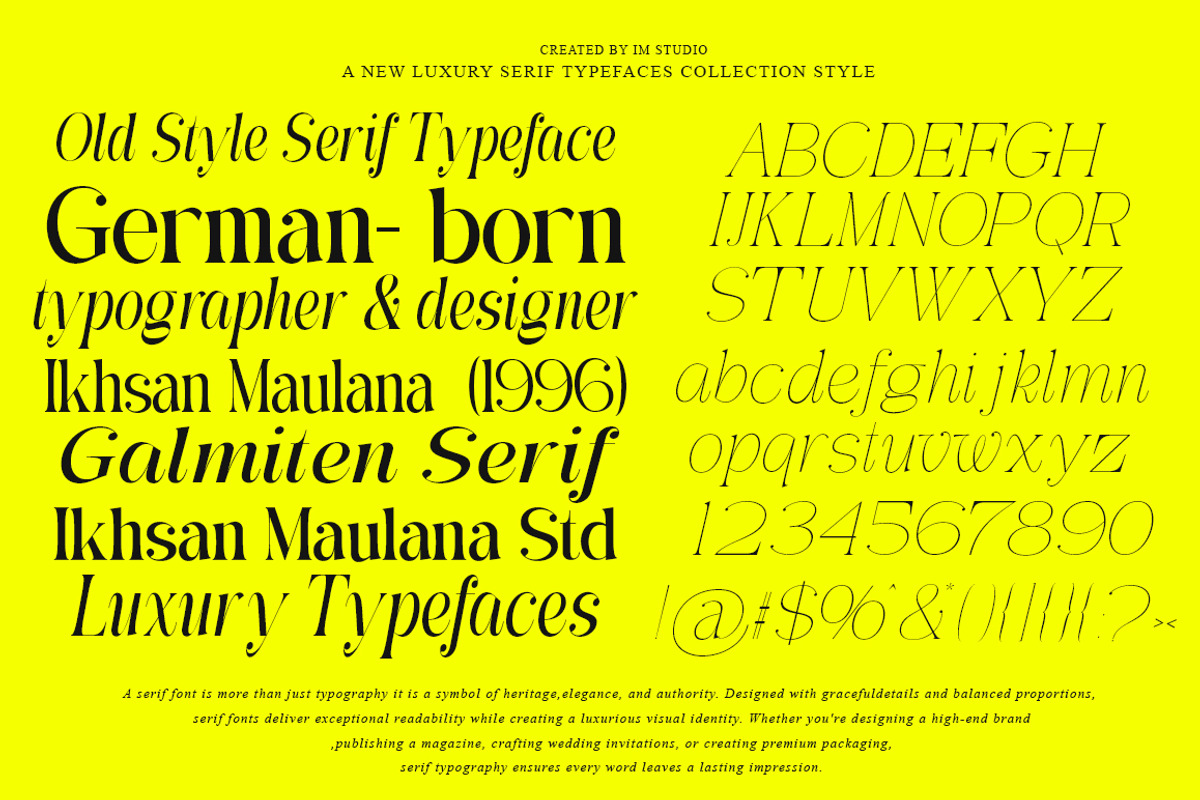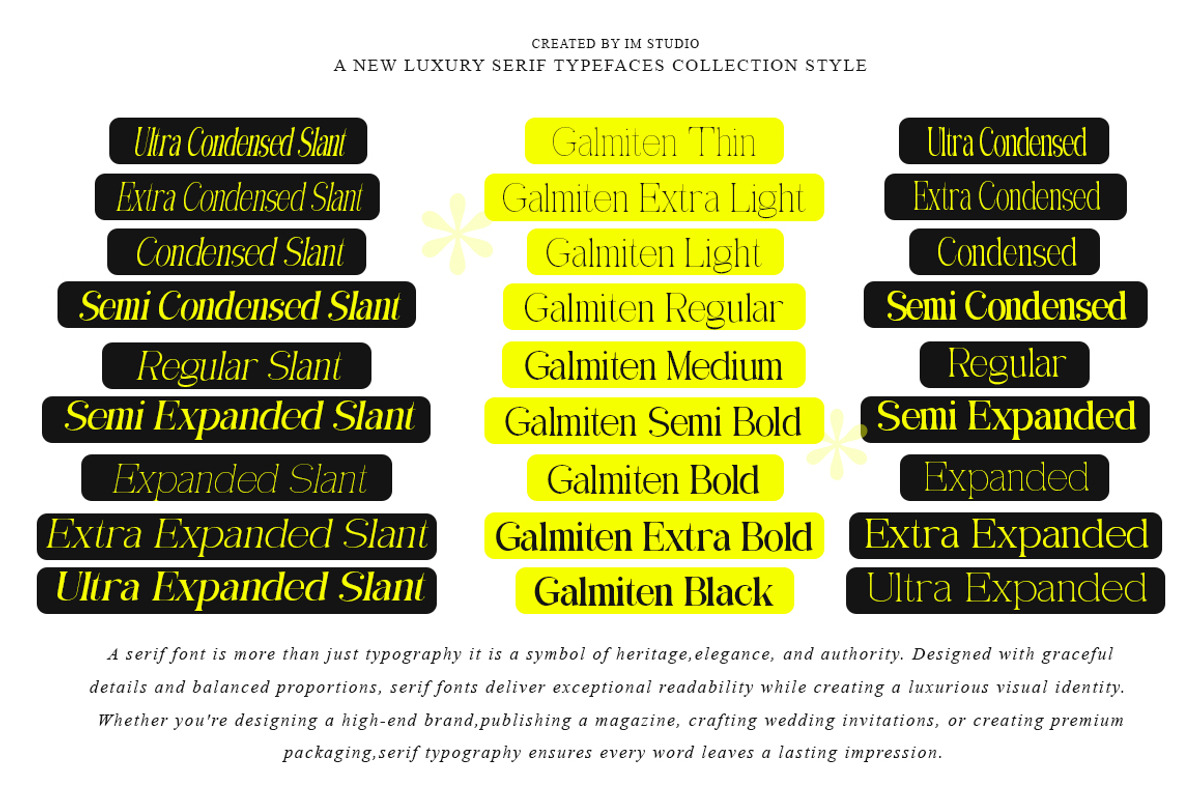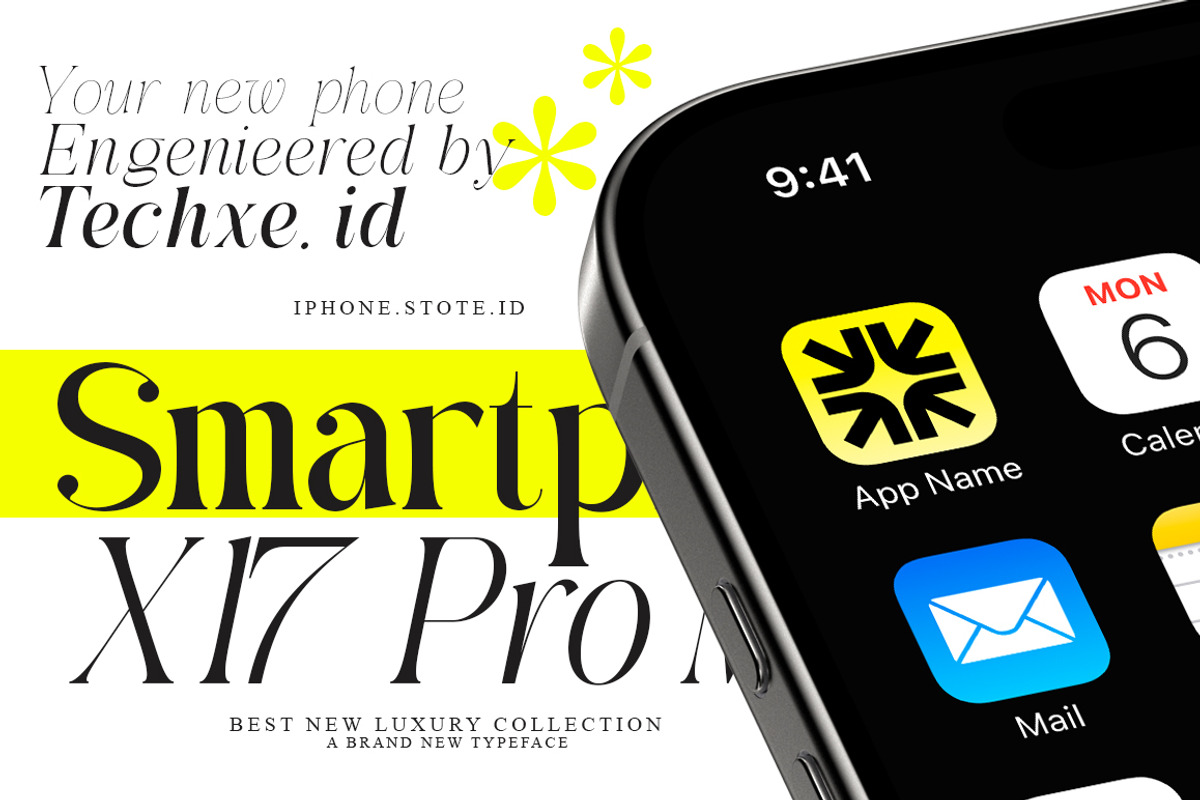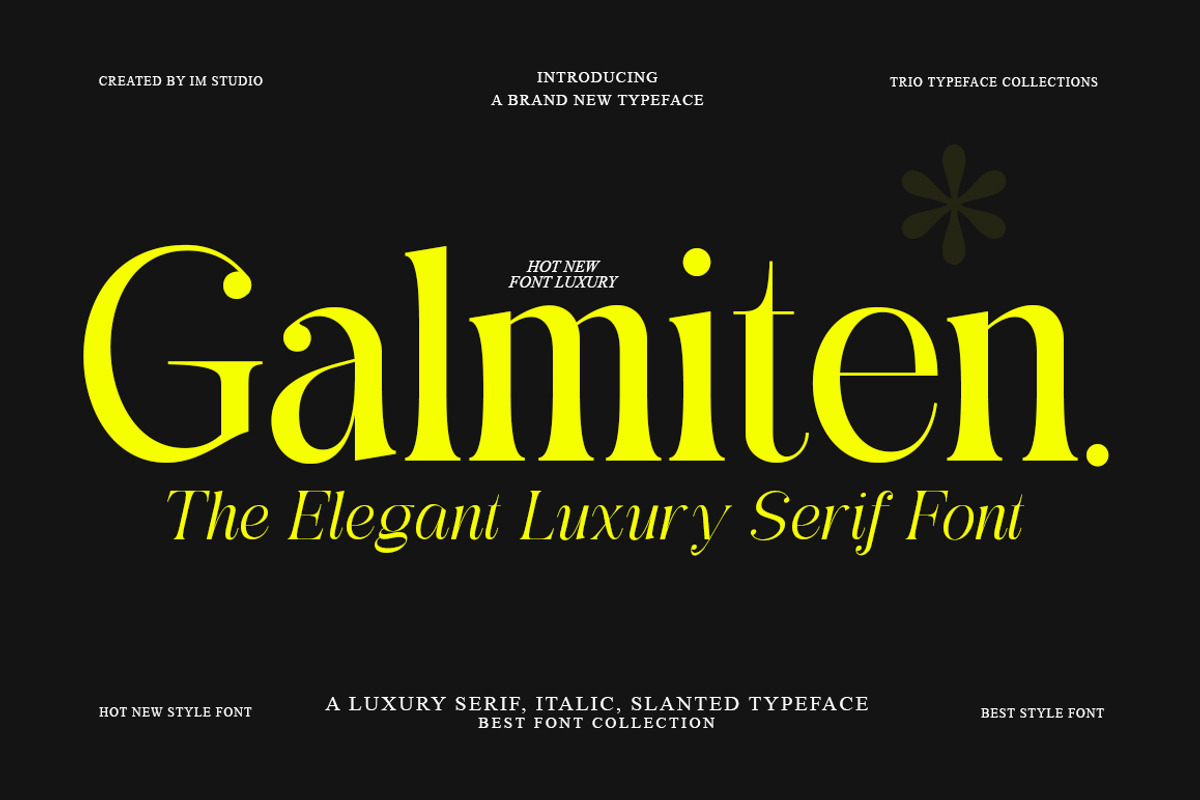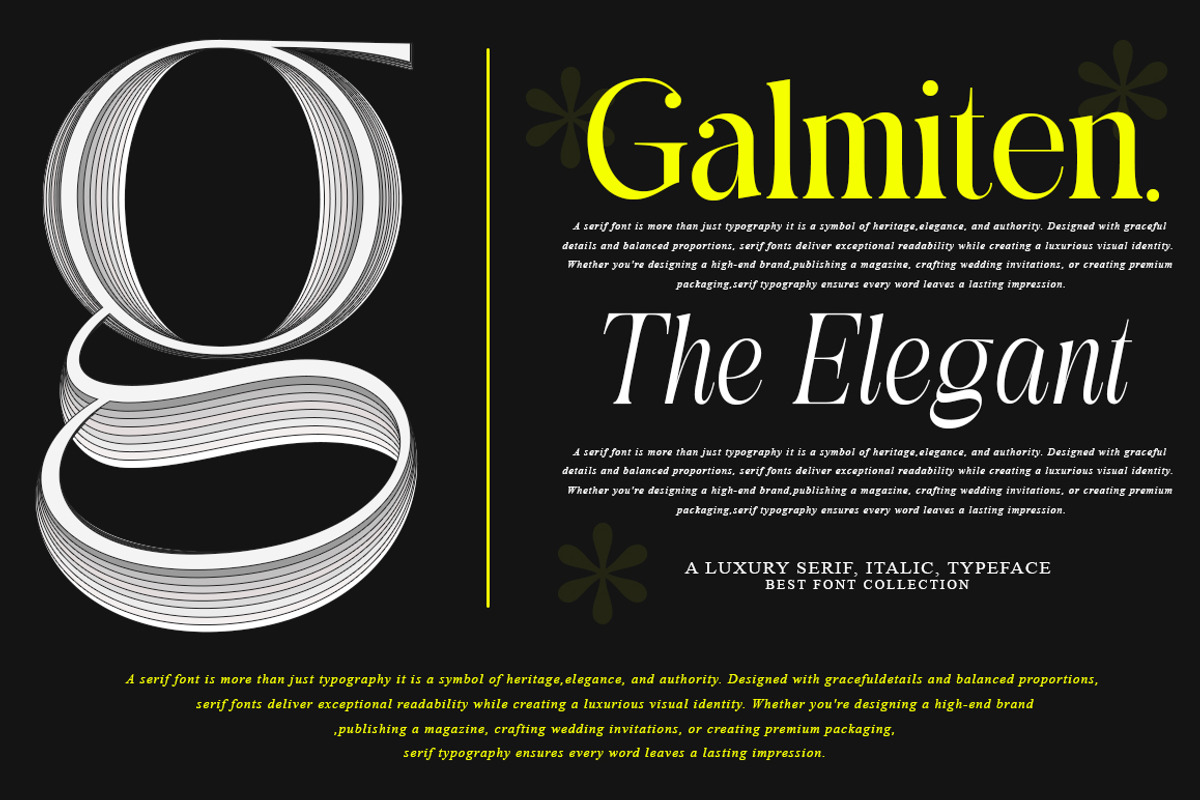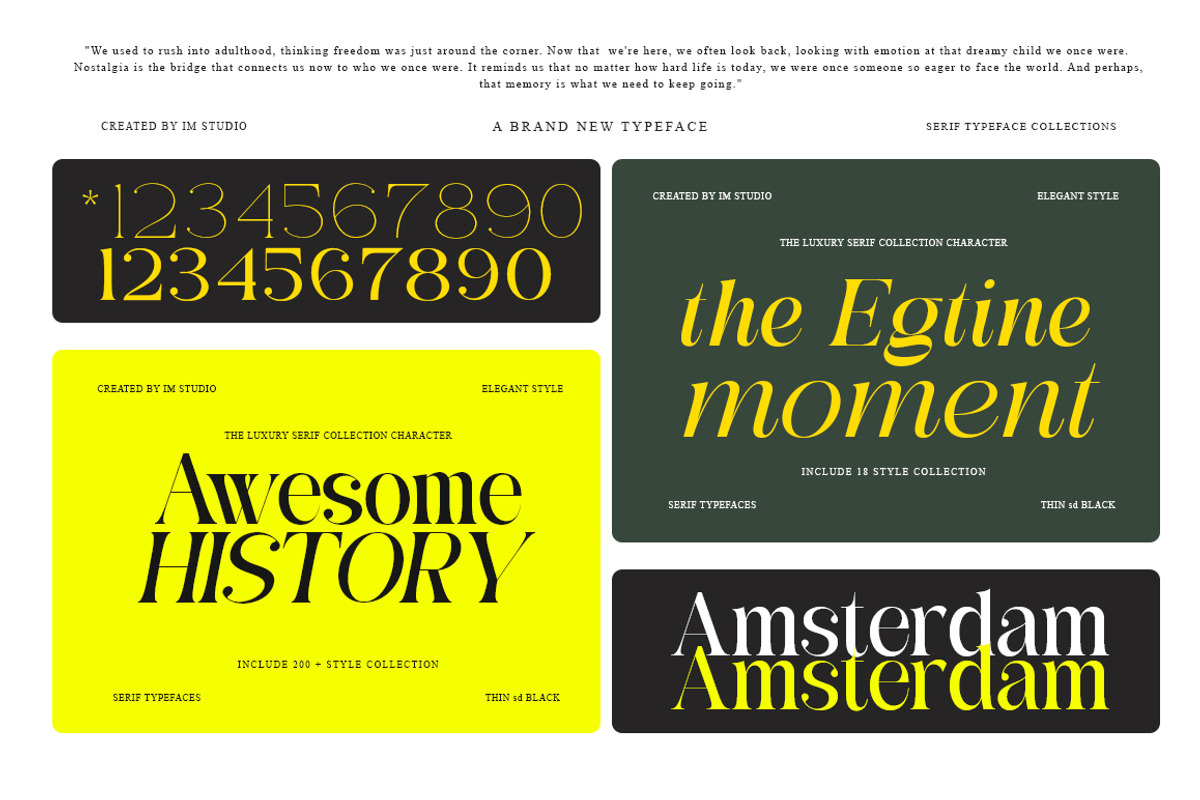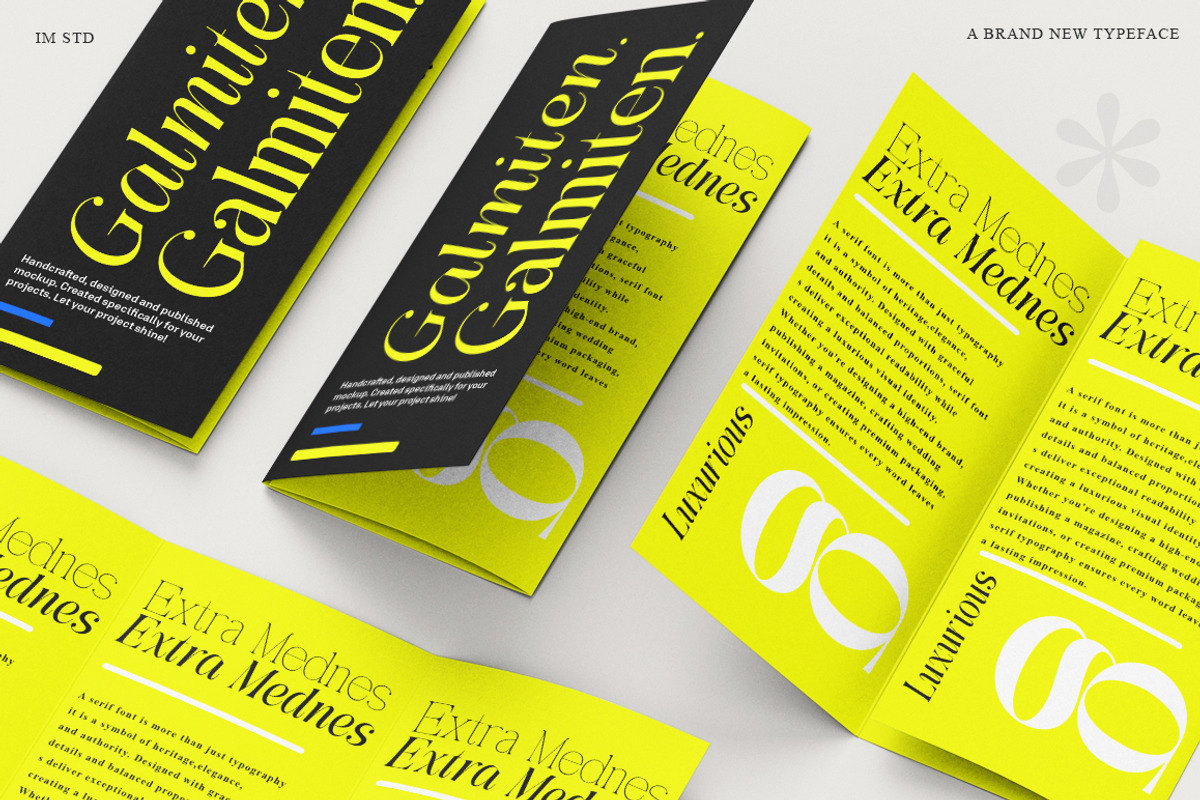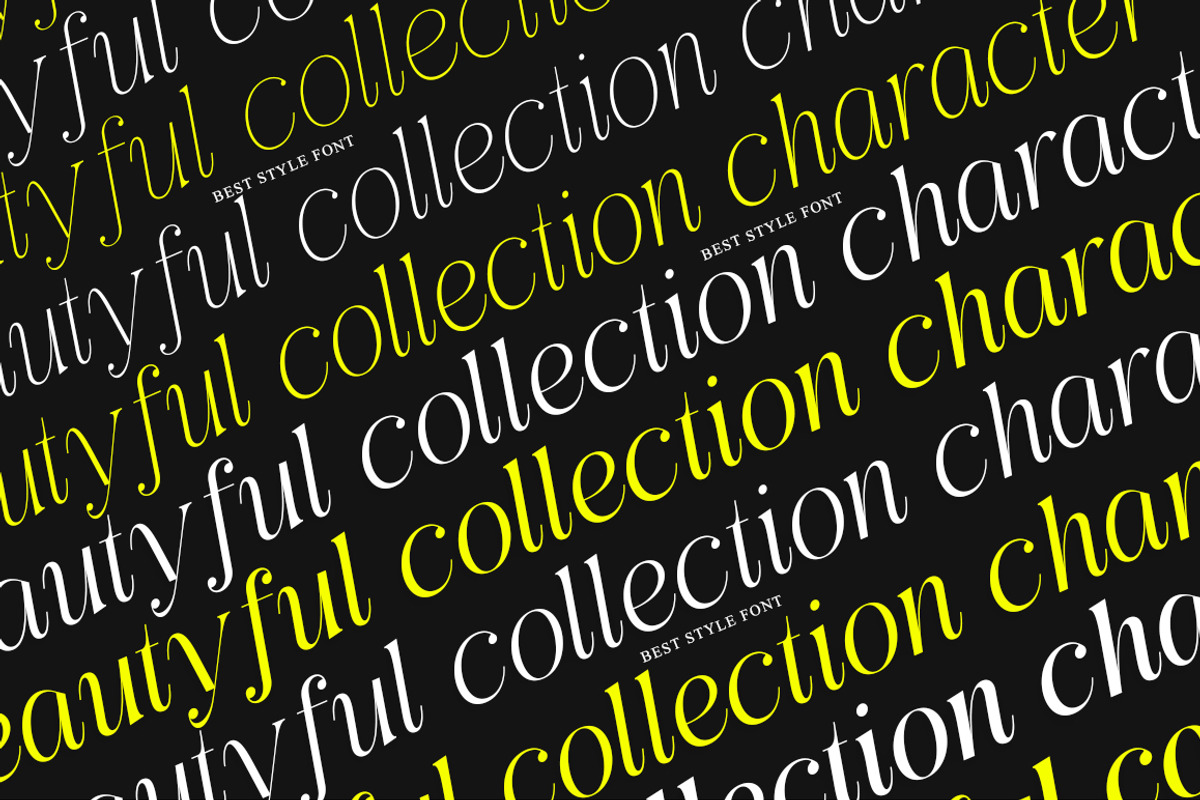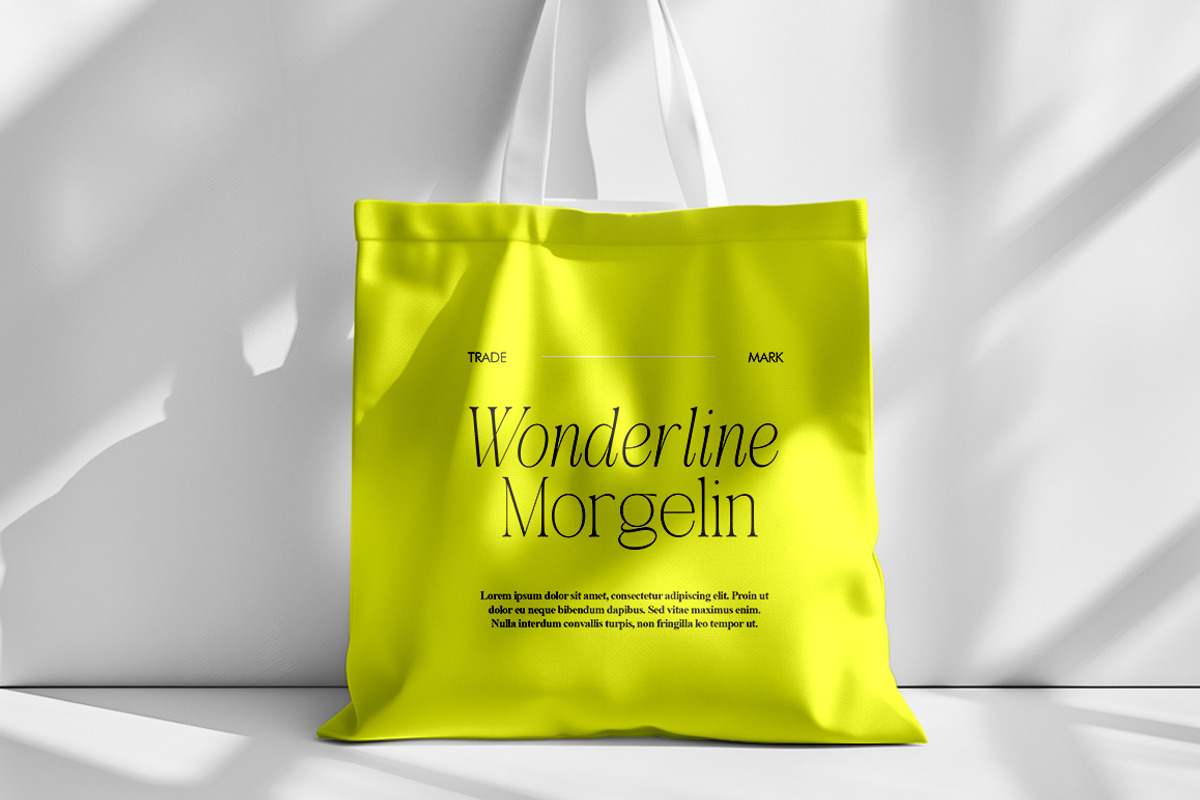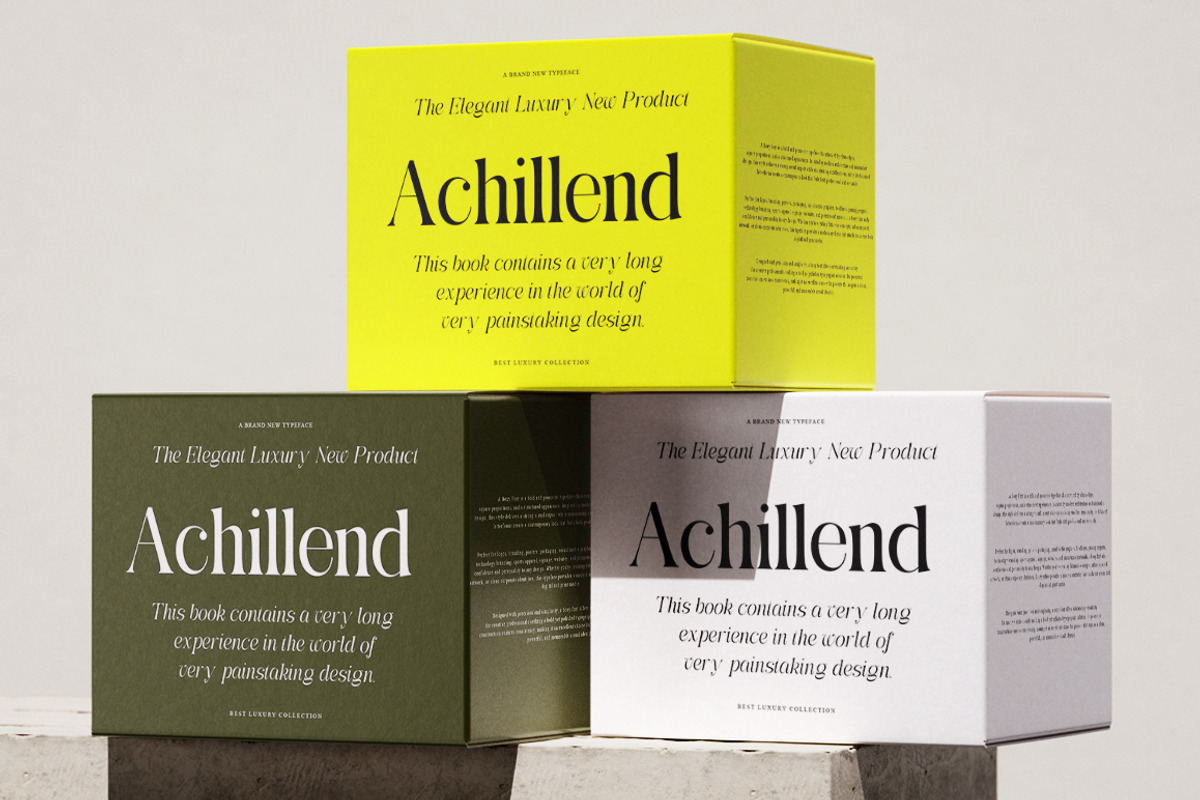
Galmiten | 243 Font Styles
Timeless Luxury. Modern Precision. Endless Creativity.
Introducing Galmiten, a premium font superfamily featuring 243 professionally crafted font styles that combine the sophistication of classic serif typography with the clean versatility of modern sans serif and the expressive beauty of true italics.
Designed for creative professionals who demand elegance without compromise, Galmiten delivers exceptional flexibility across branding, editorial, packaging, advertising, web design, and luxury visual identities. Every letterform has been carefully refined with balanced proportions, graceful curves, and high-contrast details to create typography that feels both timeless and contemporary.
Whether you're building a premium brand, designing a magazine, creating elegant invitations, or crafting luxury packaging, Galmiten provides the complete typographic system you need.
Why You'll Love Galmiten
243 Complete Font Styles
An extensive font family offering remarkable creative freedom. Mix and match multiple weights, widths, and true italic styles to build beautiful visual hierarchies for any project.
Elegant Serif Design
Classic proportions combined with contemporary refinement create a luxurious appearance suitable for both traditional and modern layouts.
Professional Sans Serif Companion
Clean, minimal, and highly legible styles that perfectly complement the serif collection for versatile design systems.
True Italic Fonts
Every italic style has been individually designed—not simply slanted—resulting in natural rhythm, elegant movement, and professional typography.
OpenType Features
Unlock advanced typography with beautifully crafted ligatures, stylistic alternates, and professional glyph substitutions for unique, polished designs.
Extensive Language Support
Supports more than 90 languages, making Galmiten ideal for international branding and multilingual publishing.
Optimized for Print & Digital
Sharp, balanced, and highly readable across large headlines, editorial text, websites, mobile interfaces, presentations, and high-resolution printing.
Built for Designers Who Value Quality
Galmiten was created with attention to every detail, ensuring each character works beautifully on its own while harmonizing across the entire family. Its balanced construction makes it equally effective for dramatic headlines, refined body text, elegant logos, and sophisticated branding systems.
From luxury fashion labels to modern editorial publications, Galmiten helps transform ideas into memorable visual experiences.
Bring timeless elegance, modern versatility, and professional craftsmanship into every design with GalmIten—a complete typography collection created for today's designers and tomorrow's brands.